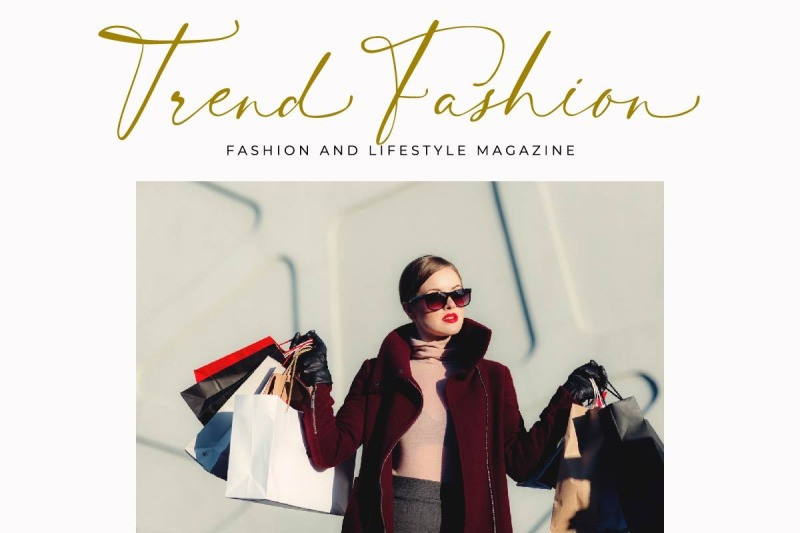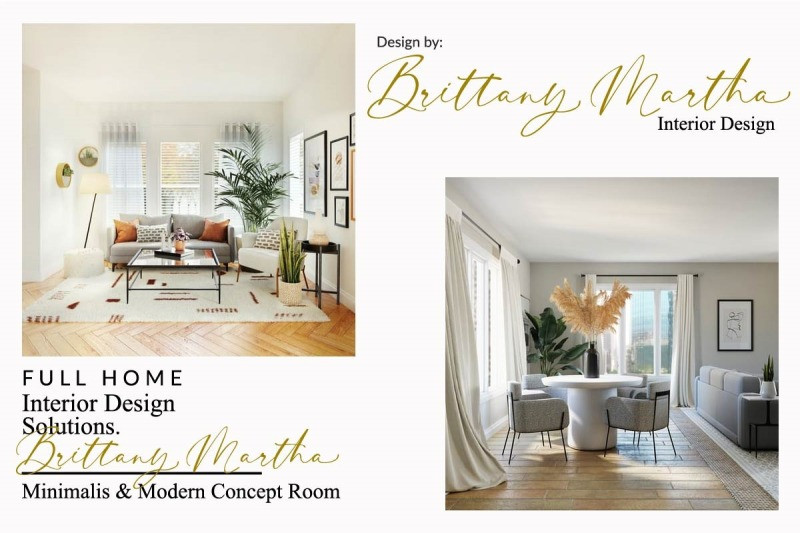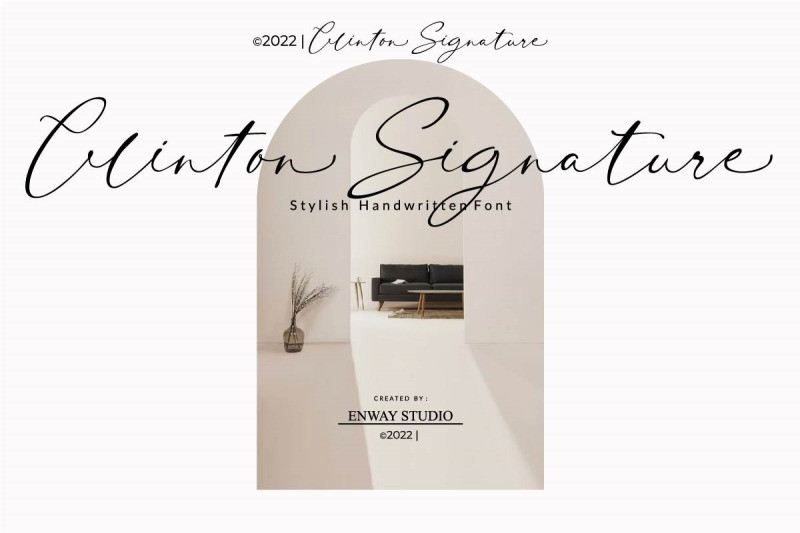
Clinton Signature Font
The Clinton Signature font is a stylish, modern and elegant handwritten font for various design work such as brochures, wedding invitations, business cards, advertising media, trademarks or company logos.